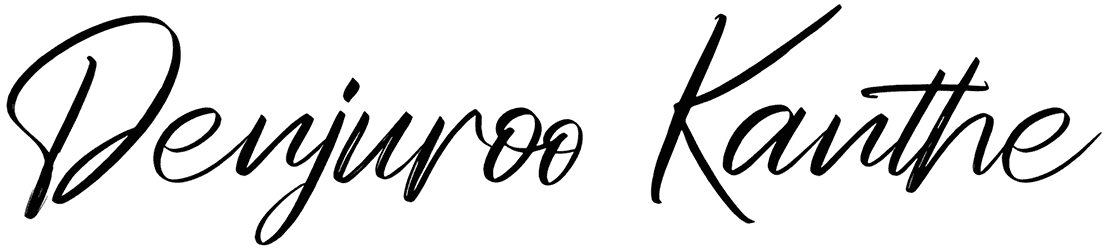
Denjuroo Kanthe Font
If you are looking for an excellent script font, download the Denjuroo Kanthe font and create a memorable experience for your audience. This autograph font has a charismatic personality that makes it catchy.
You may use the Denjuroo Kanthe for various cases, such as invitation cards, magazine covers, and luxury logos. This font’s letters are thin with rounded edges and not entirely strict, which sends a friendly vibe and keeps your ideas in the viewer’s mind.